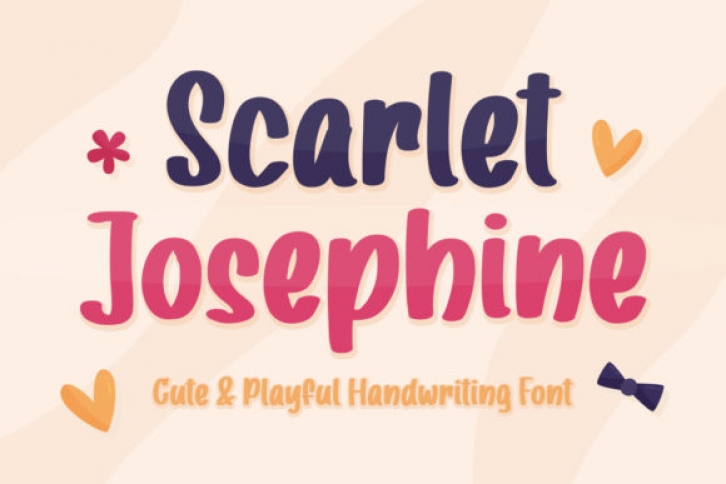
Scarlet Josephine is a playful and thick lettered display font. It has cute and friendly characters and as a result, it matches a wide pool of designs. Add it to your most creative ideas and notice how it makes them come alive!